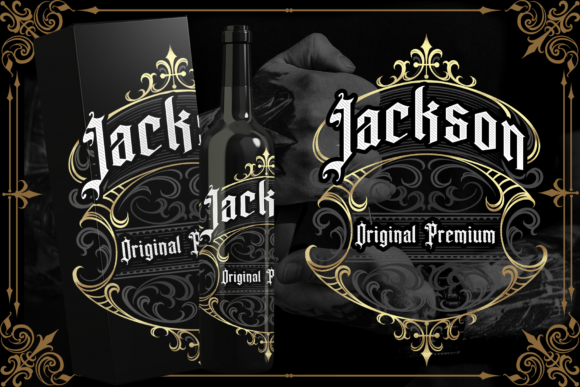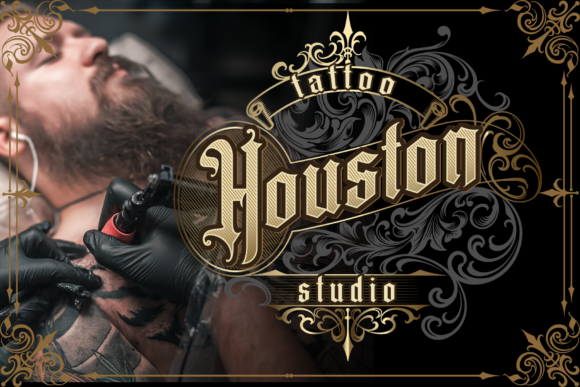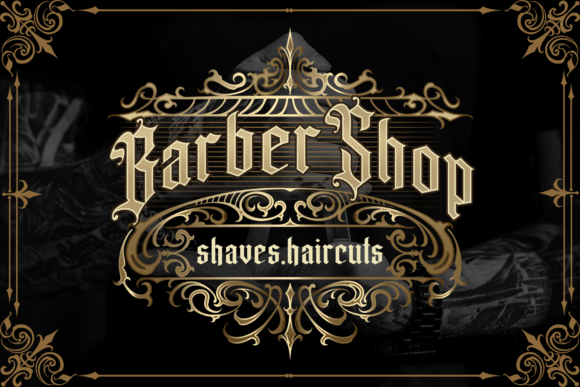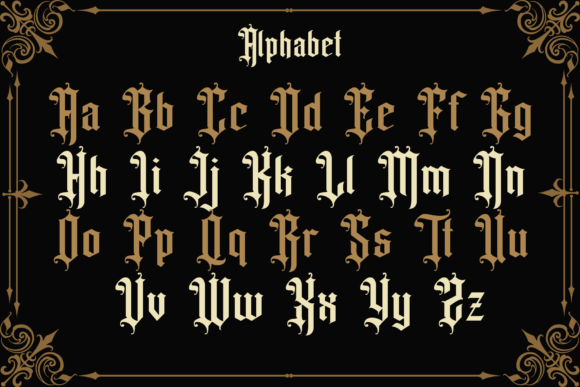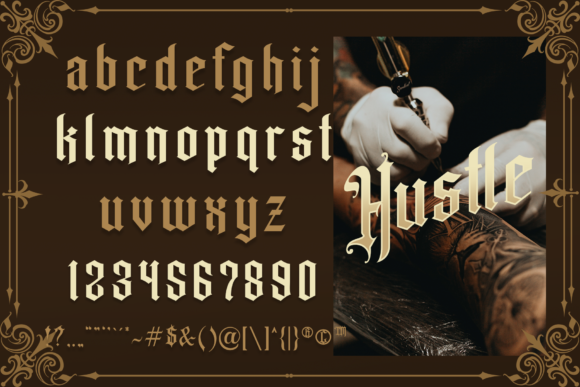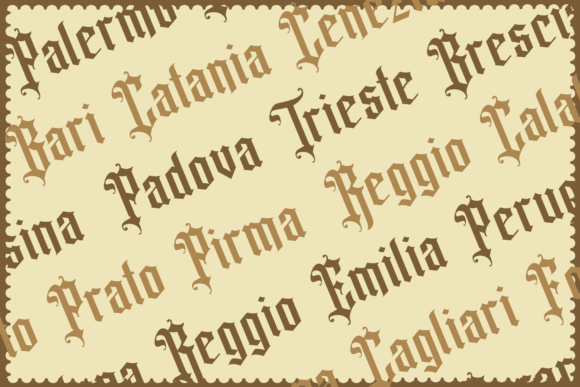
Introduction to Cleanthes Font Font
Fonts play a crucial role in design, and the Cleanthes Font font is a typeface that brings both character and versatility to any project. Whether you’re working on a branding project, a website, or a print design, the Cleanthes Font font offers a unique style that can elevate your work.
Cleanthes a distinct, highly detailed, and chic blackletter font.
It would make a great choice for exquisite retro-urban designs, tattoo business branding, logos, vintage designs, and more .
Key Features of Cleanthes Font Font
Why Choose Cleanthes Font Font?
The Cleanthes Font font is more than just a typeface – it’s a design tool that helps you communicate your message with style and clarity. Its unique character set and versatile design make it suitable for a wide range of applications, from elegant invitations to bold headlines.
With its carefully crafted letterforms and balanced proportions, the Cleanthes Font font ensures readability and visual appeal across all mediums.
What makes Cleanthes Font font special?
The Cleanthes Font font stands out with its unique design, exceptional readability, and versatility across various design applications.